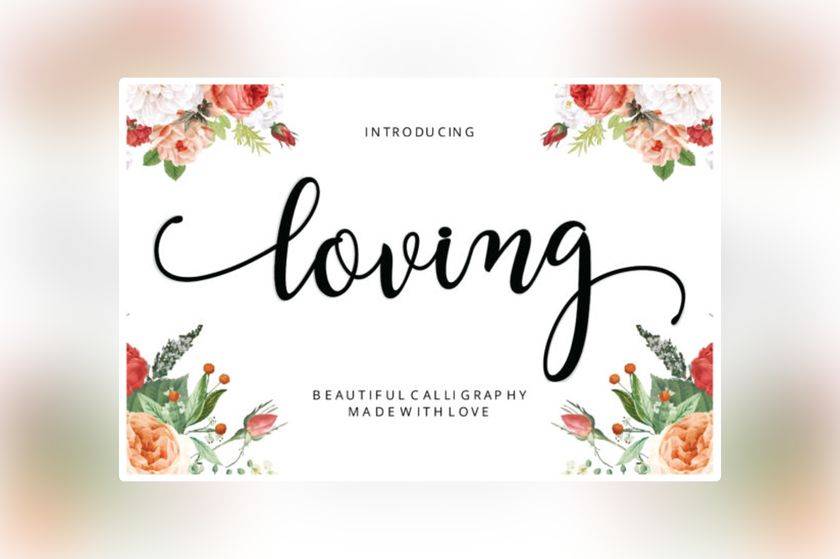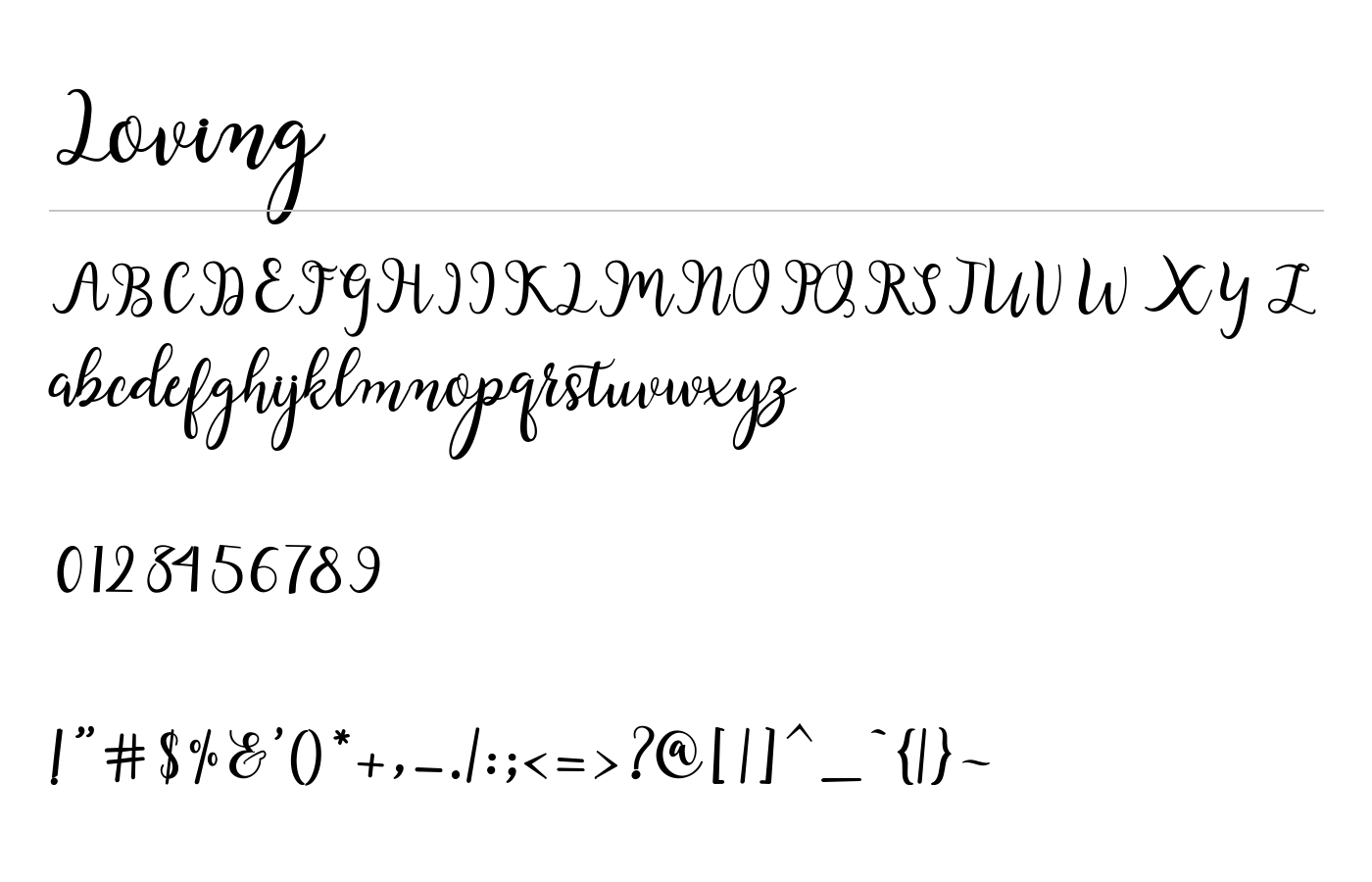
Loving Font is an elegant, script-style typeface with a graceful flow and delicate strokes that convey warmth and charm. Its slender, slightly varied line weight and charming curls create a romantic and friendly feel, making it perfect for wedding invitations, greeting cards, and branding that seeks a personal, heartfelt touch. This font shines in decorative and headline uses where its expressive letterforms can truly stand out.
Loving Font
About Loving Font